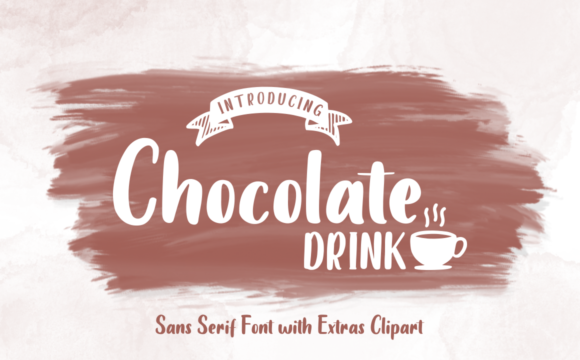
Indulge in the rich, creamy delight of Chocolate Drink Font, the captivating sans serif that will tantalize your senses and elevate your designs to new heights of sophistication. Inspired by the irresistible charm of a decadent chocolate drink, this font exudes a sweet and sophisticated allure that will enchant all who behold it.
With its smooth, flowing curves and elegant lines, Chocolate Drink Font embodies the essence of classic typography, yet it maintains a modern and inviting appeal. Its unique character set adds a touch of organic charm to any project, making it perfect for branding, packaging, invitations, and any other creative endeavor where a touch of sweet sophistication is desired.
Experience the boundless versatility of Chocolate Drink Font. Whether you seek to evoke the nostalgic charm of a vintage confectionery or convey the modern elegance of a luxury brand, this font will seamlessly adapt to your vision. Its timeless appeal will enhance any project with an air of sophistication and indulgence.
Embrace the sweet temptation of Chocolate Drink Font and watch as your designs flourish with a sprinkle of delectable delight!